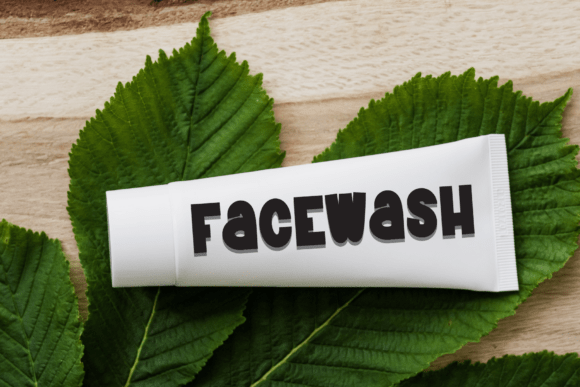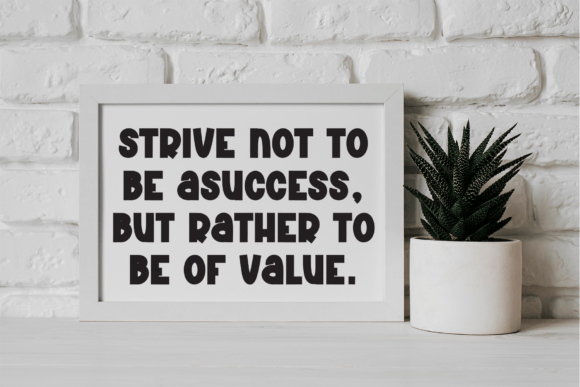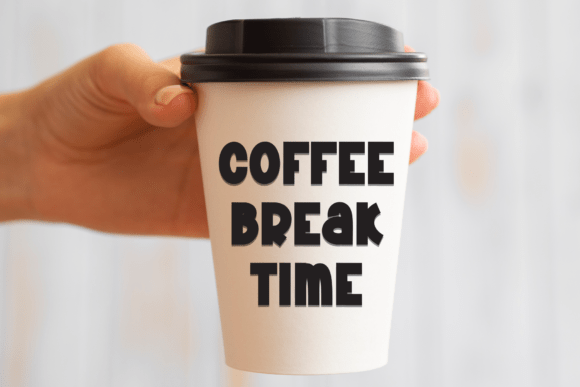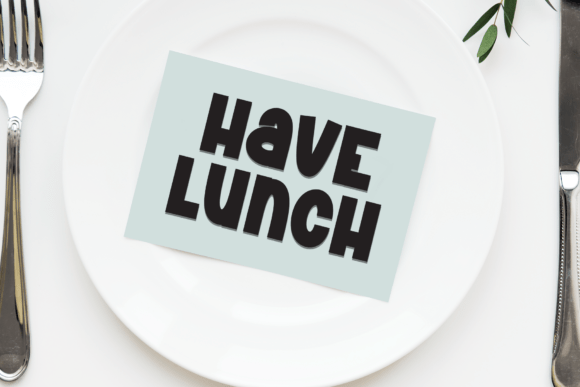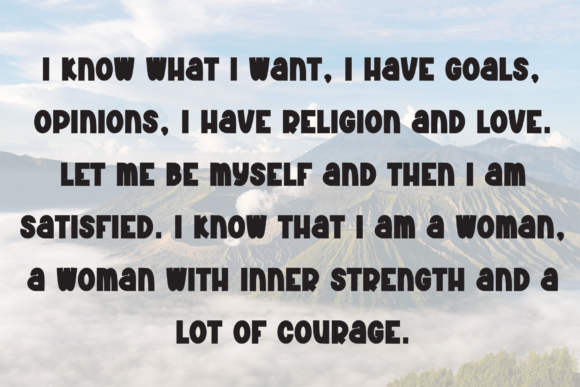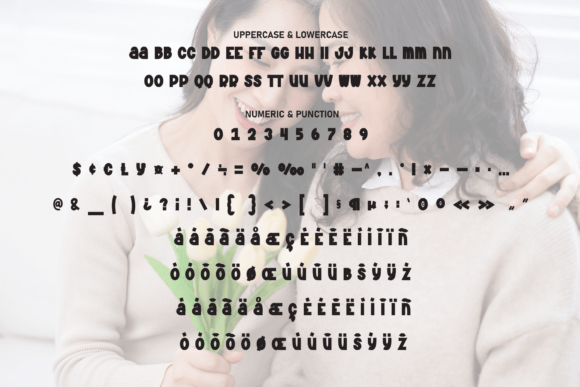
Introducing Happy Mother Font: The Perfect Blend of Warmth and Clarity
Are you tired of using fonts that are too formal or lack a personal touch? Look no further than Happy Mother Font, a casual and neat display font designed to bring warmth and clarity to your projects. With its clean structure and approachable style, Happy Mother Font is perfect for branding, headlines, and everyday designs that require a friendly and inviting tone.
The Design Behind Happy Mother Font
Happy Mother Font boasts a balanced and harmonious design, with letterforms that are carefully crafted to offer exceptional readability and charm. The font’s clean structure and simple lines make it easy to read, while its approachable style adds a touch of warmth and personality to any text. Whether you’re designing a logo, creating a social media post, or crafting a website, Happy Mother Font is the perfect choice for adding a personal touch to your projects.
Key Features of Happy Mother Font
- Clean Structure: Happy Mother Font features a clean and simple design that makes it easy to read and understand.
- Approachable Style: The font’s approachable style adds a touch of warmth and personality to any text, making it perfect for designs that require a friendly tone.
- Balanced Letterforms: The font’s balanced letterforms offer exceptional readability and charm, making every message feel genuine and inviting.
- Versatile: Happy Mother Font is perfect for a wide range of designs, including branding, headlines, and everyday designs.
Use Cases for Happy Mother Font
Happy Mother Font is a versatile font that can be used in a variety of designs, including:
- Branding: Use Happy Mother Font to create a logo or brand identity that reflects your company’s personality and values.
- Headlines: Add a touch of warmth and personality to your headlines with Happy Mother Font, perfect for blog posts, articles, and social media posts.
- Everyday Designs: Use Happy Mother Font to add a personal touch to your everyday designs, such as flyers, brochures, and posters.
- Web Design: Happy Mother Font is perfect for web design, adding a friendly and inviting tone to your website’s content.
Why Choose Happy Mother Font?
With so many fonts to choose from, why choose Happy Mother Font? Here are just a few reasons:
- Unique Style: Happy Mother Font offers a unique and distinctive style that sets it apart from other fonts.
- Readability: The font’s clean structure and balanced letterforms make it exceptionally readable, even at small sizes.
- Warmth: Happy Mother Font adds a touch of warmth and personality to any text, making it perfect for designs that require a friendly tone.
In conclusion, Happy Mother Font is a casual and neat display font that is perfect for designers and crafters looking to add a personal touch to their projects. With its clean structure, approachable style, and balanced letterforms, Happy Mother Font is versatile and easy to use, making it perfect for a wide range of designs. Whether you’re creating a logo, crafting a website, or designing a social media post, Happy Mother Font is the perfect choice for adding a friendly and inviting tone to your content.